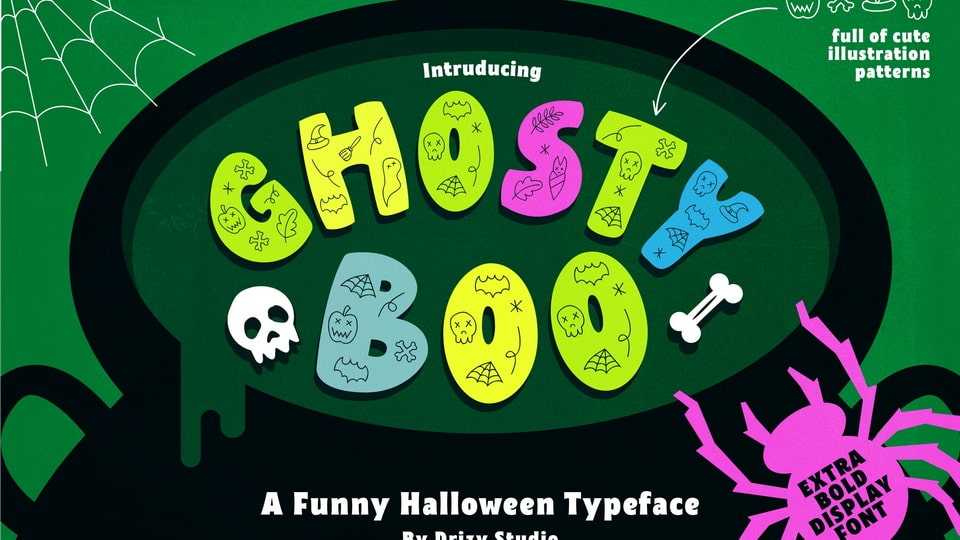
Download Ghosty Boo font, a bold decorative typeface adapted from kids’ doodles. The lovely spooky characters of Ghosty Boo font will help you create a nice Halloween mood in every crafty idea!
Designer: Drizy Studio